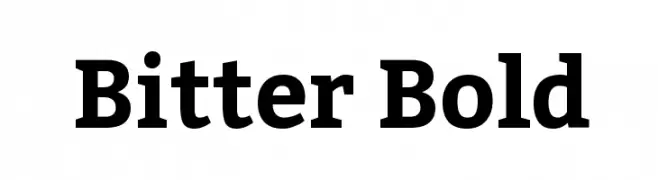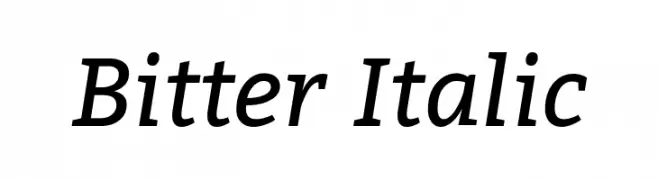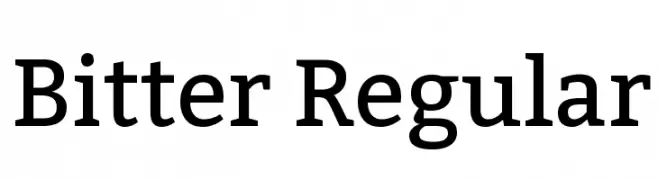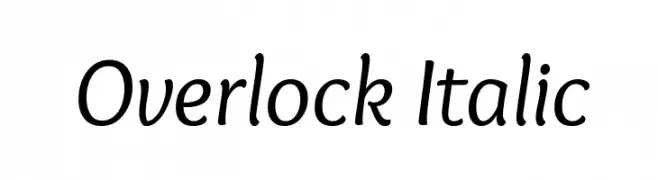
A playful, modern font with rounded edges and consistent stroke weight.
A playful, modern font with rounded edges and a friendly style.
A bold, italicized font with smooth curves and a playful yet sophisticated style.
A playful, italicized font with smooth, rounded characters.
A bold, italic font with rounded, dynamic characters and a playful style.
A heavy serif font with strong contrasts and a classic style.
A bold, slab serif font with strong, pronounced serifs and consistent stroke width.
A balanced serif font with strong vertical stress and moderate contrast, ideal for readability.
A modern serif font with an elegant italic slant and moderate contrast.
A highly condensed and elegant font with tall, narrow letterforms and minimal contrast.